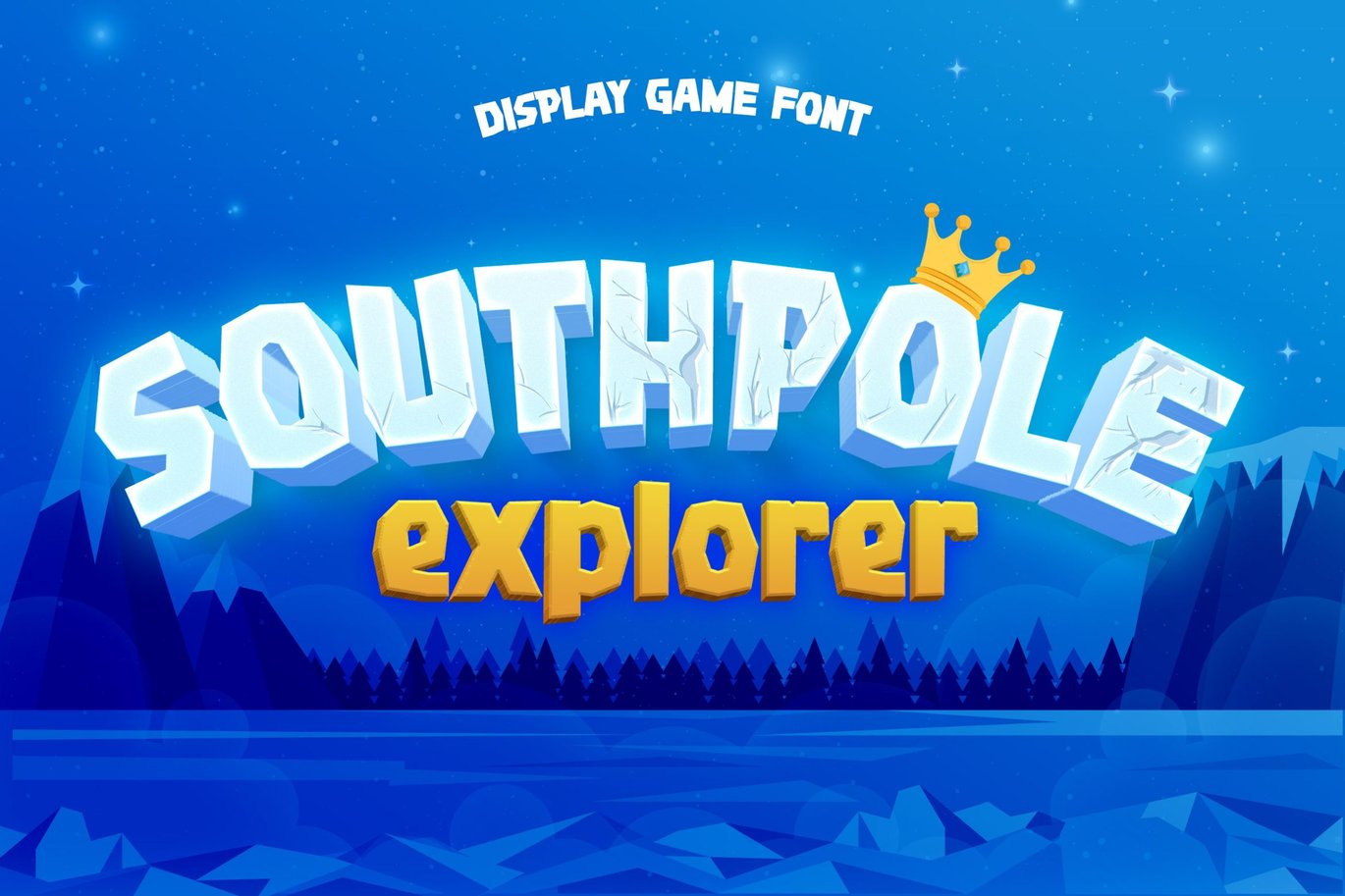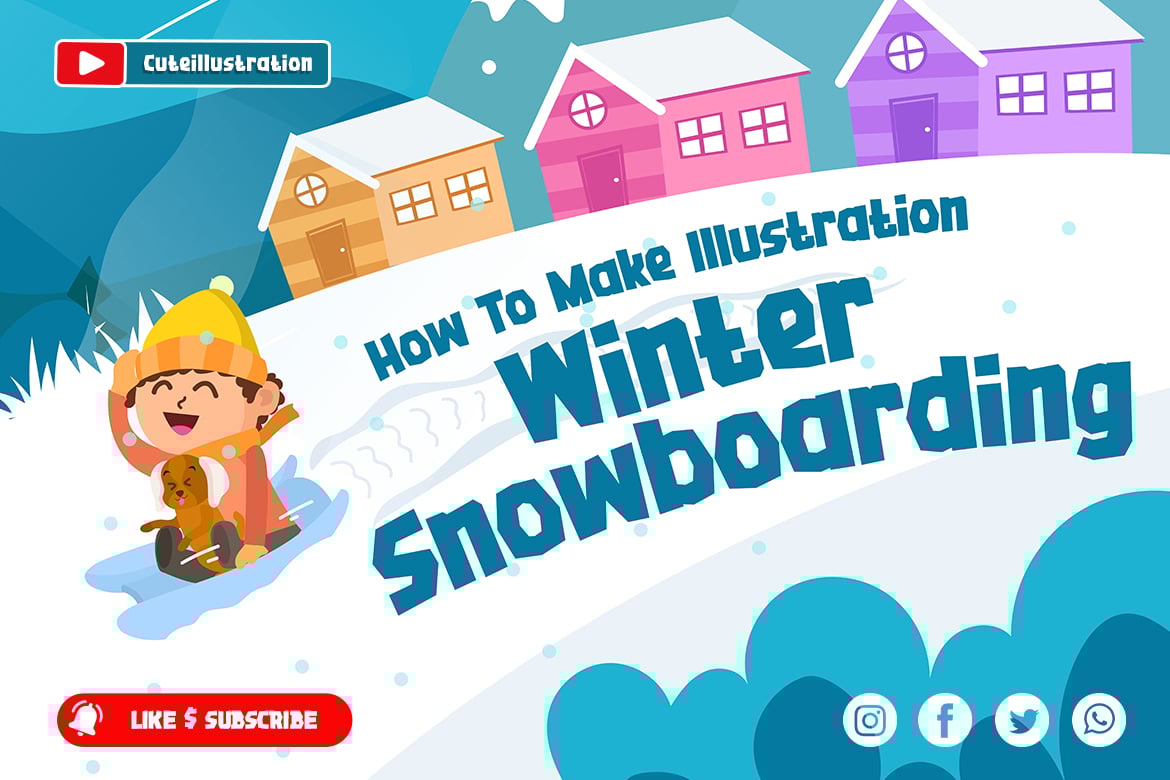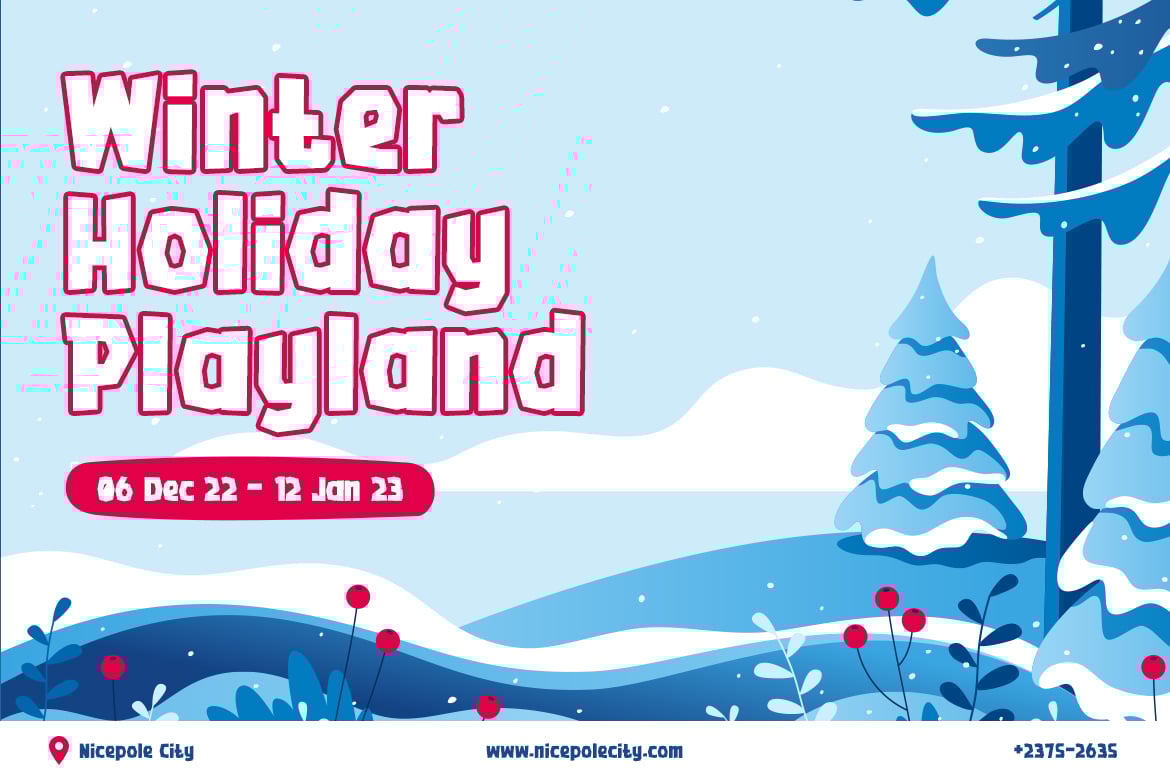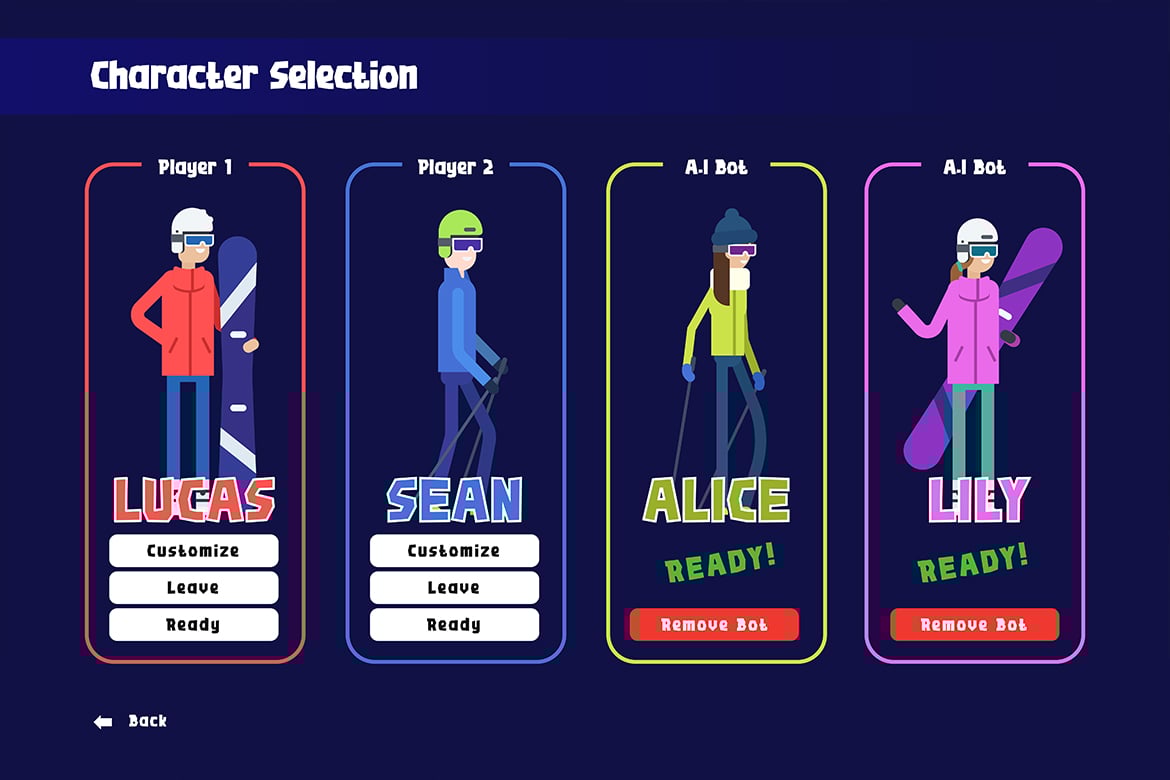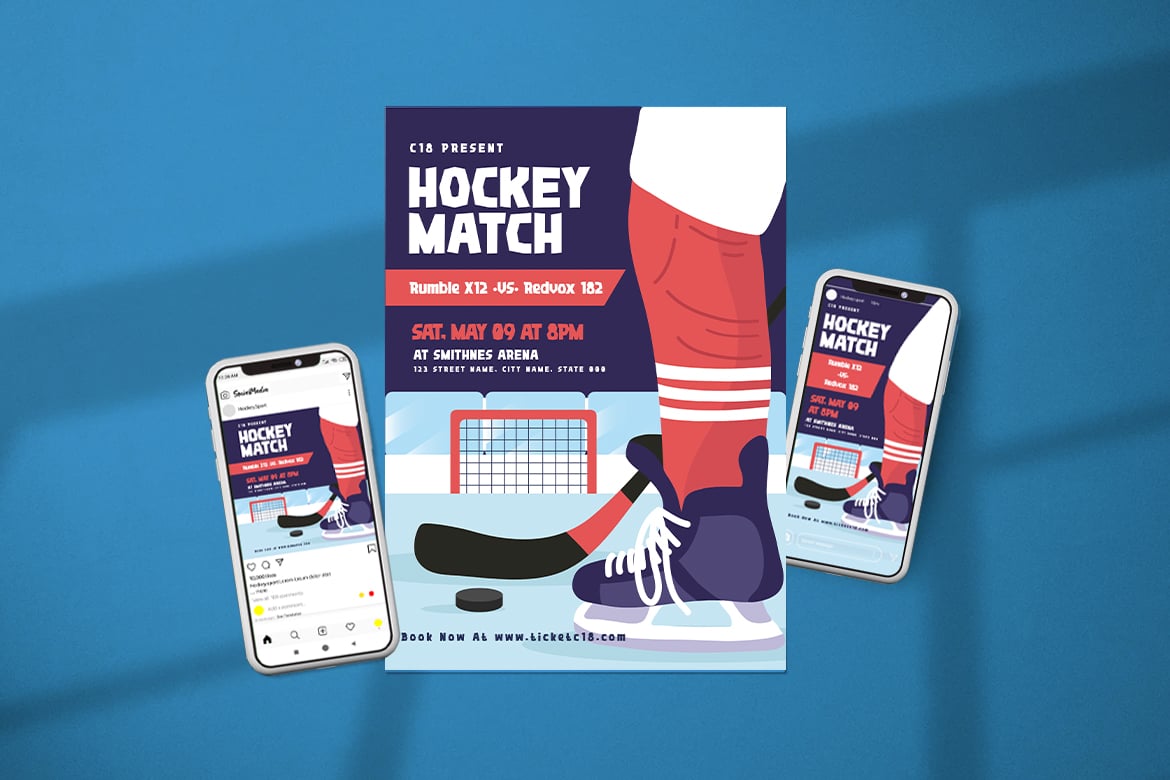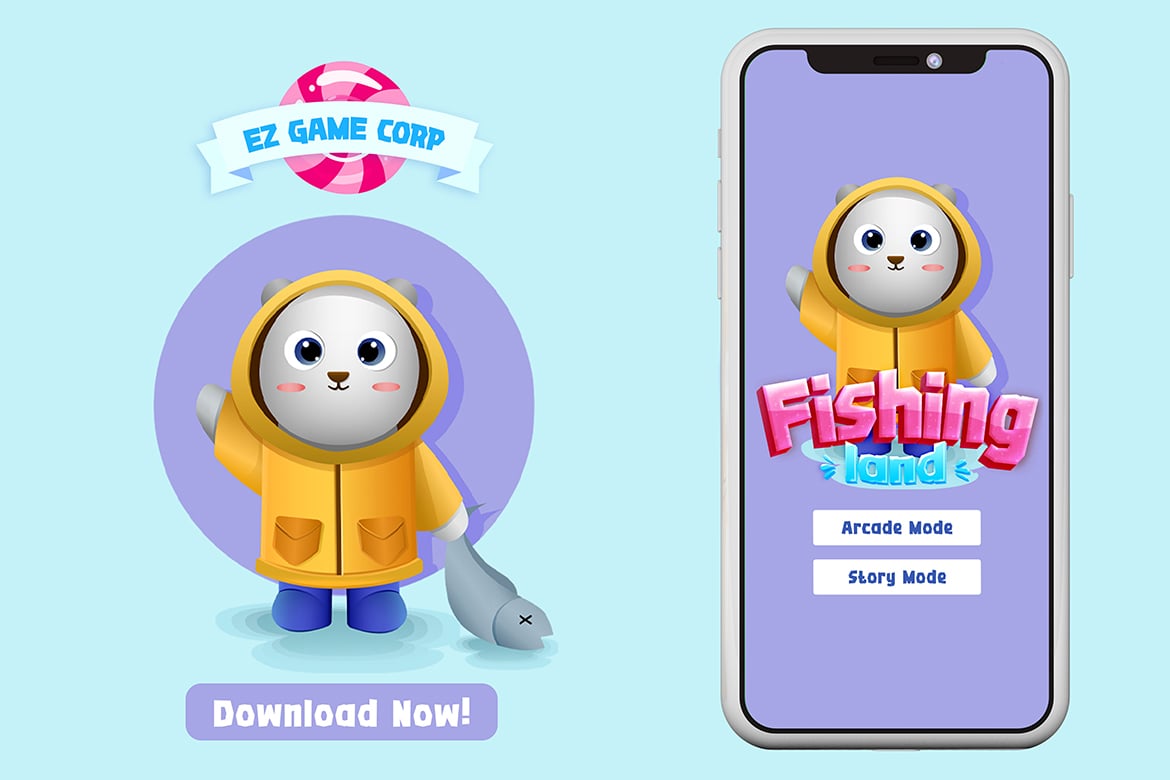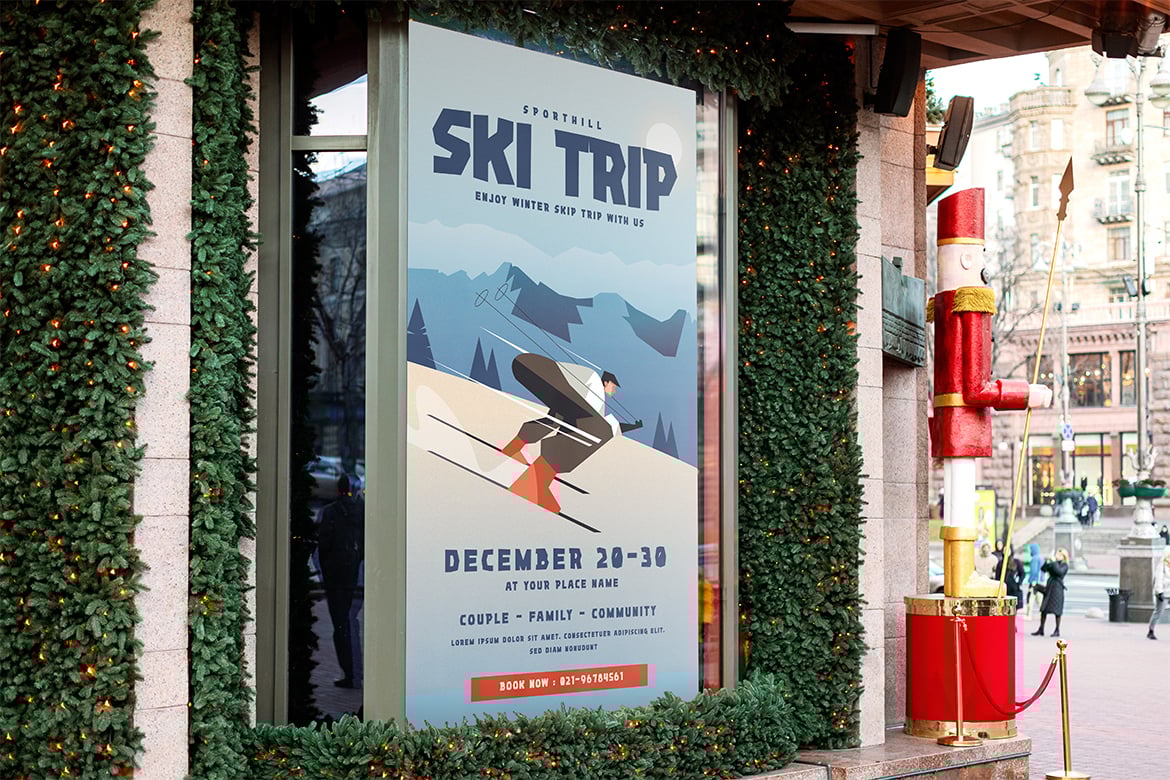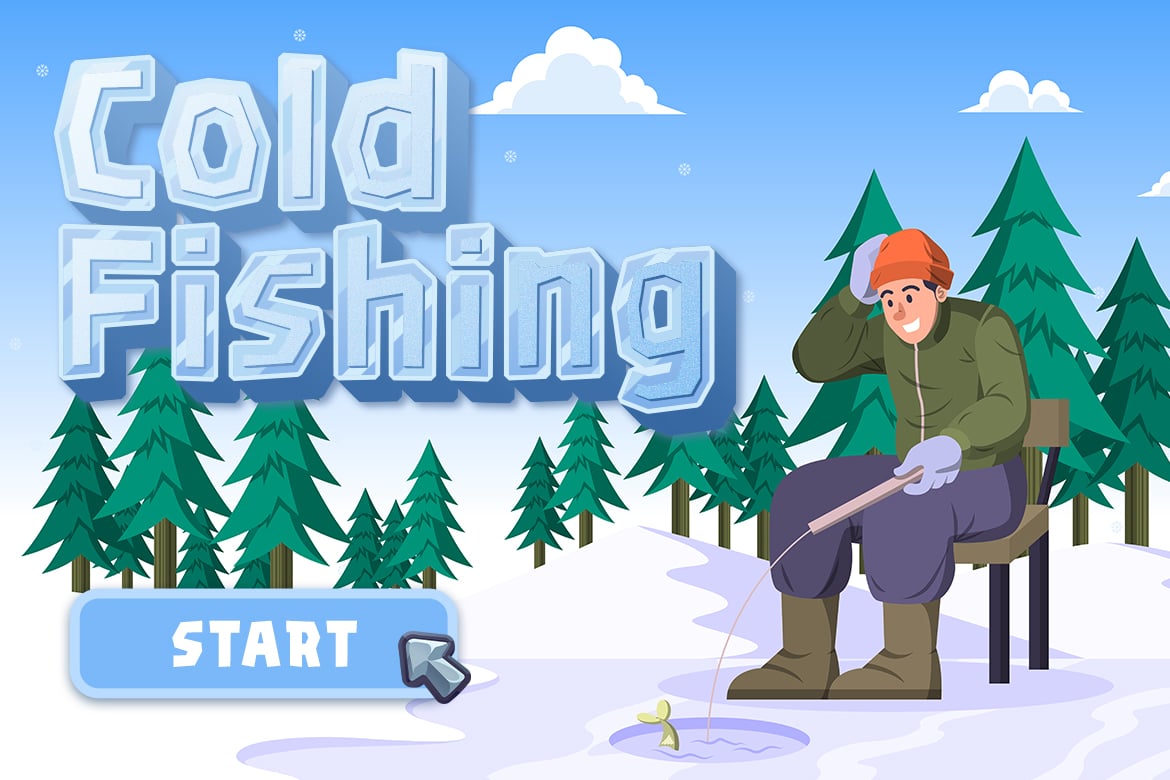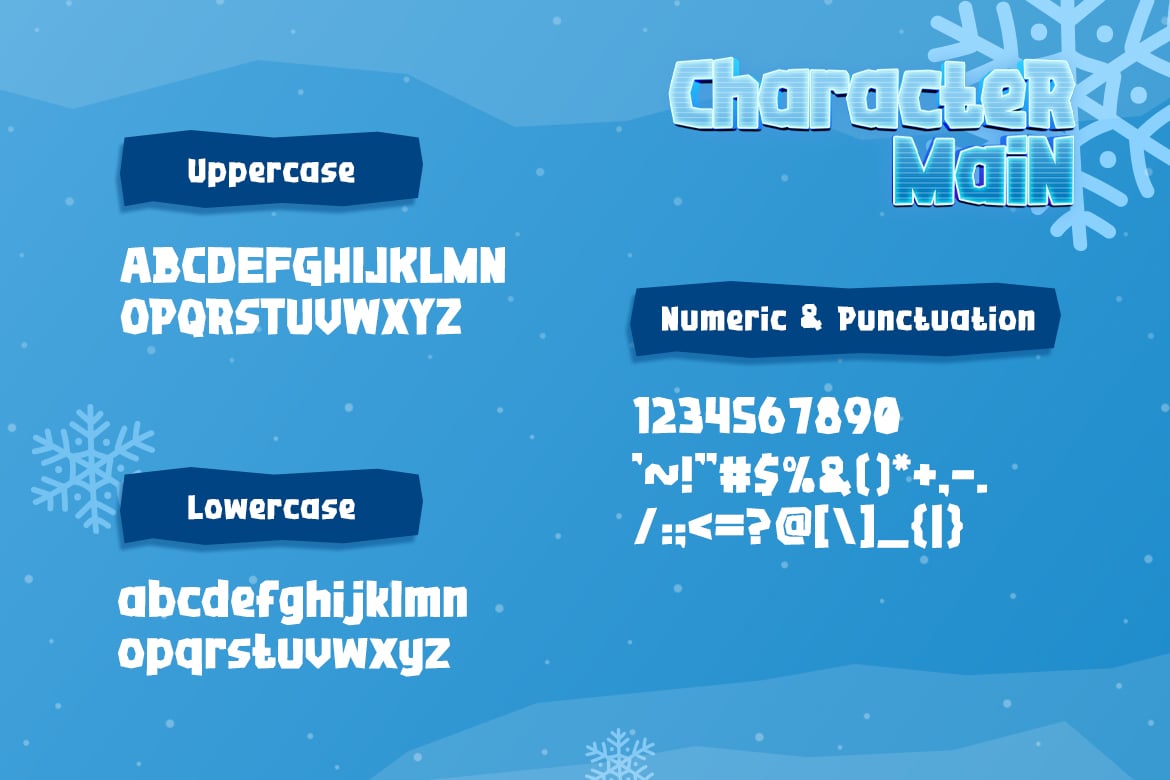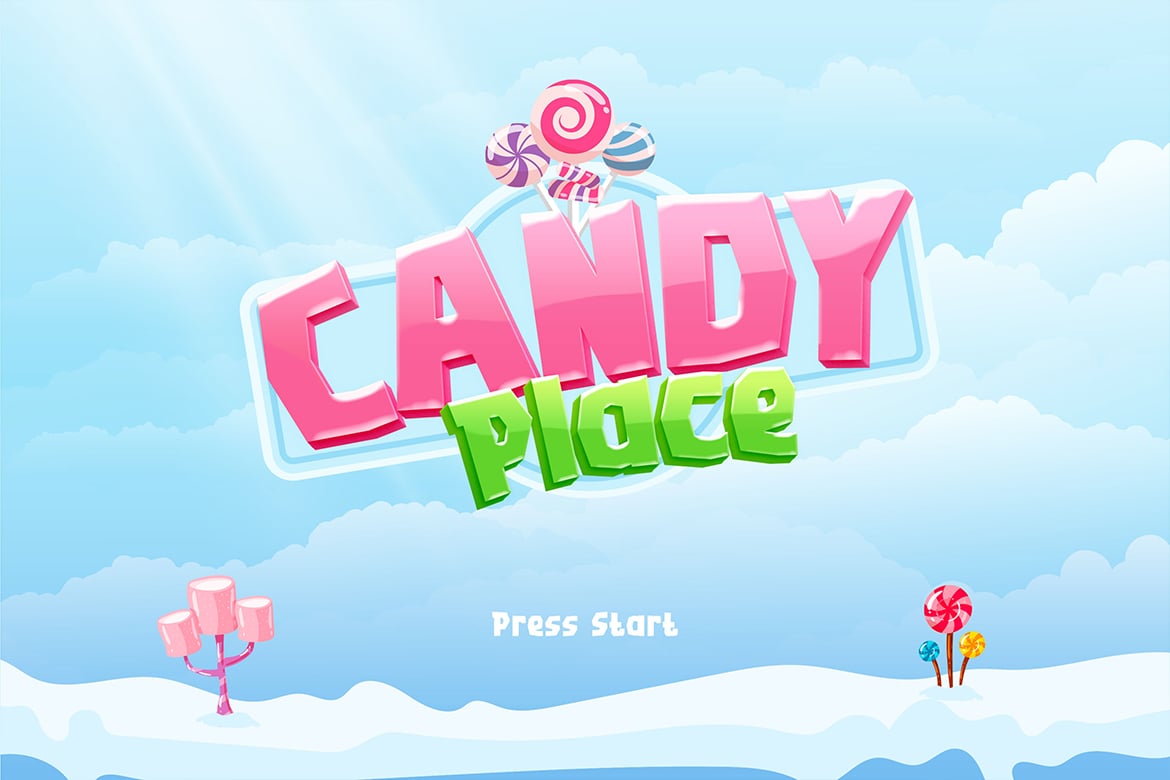
Southpole Explorer – Gaming Font
The jagged shape looks like a split of an iceberg that is cut into an alphabet shape.
Southpole Explorer is a perfect match for any winter poster and all snow-related gaming events.